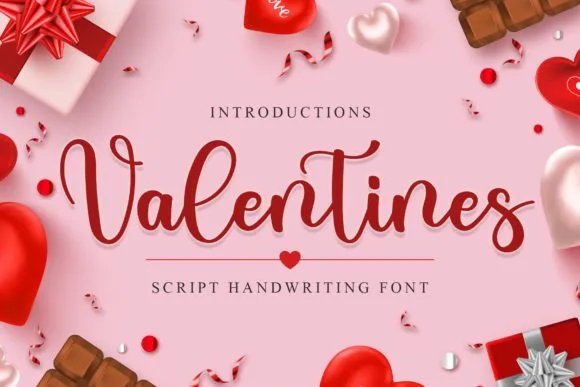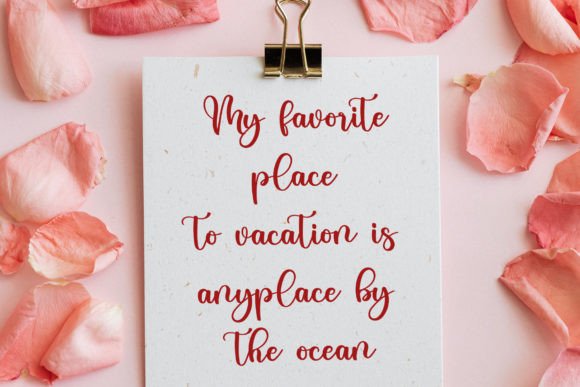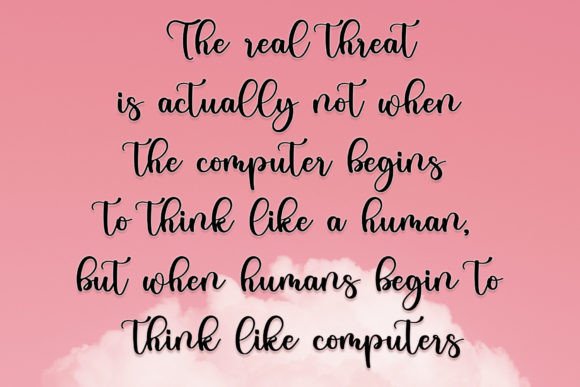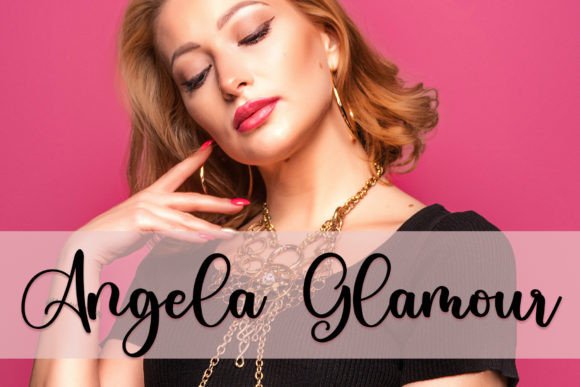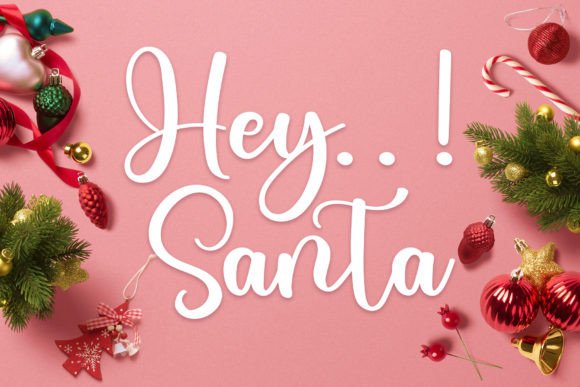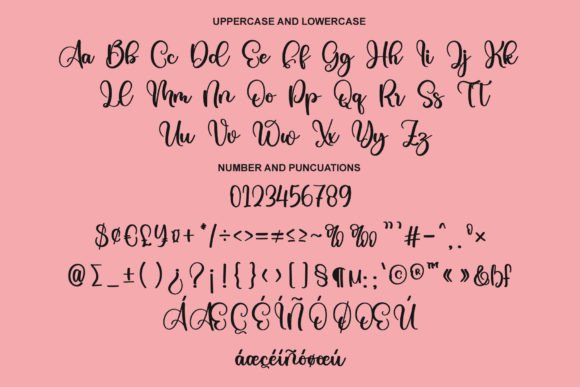
Valentines Font
About Valentines Font
Valentines font is a delicate, elegant, and flowing handwritten typeface that beautifully combines sophistication with a natural handwritten feel. This font features well-balanced characters that make it versatile enough to complement many types of design projects, from wedding invitations to branding and more.
Elegant and Flowing Design
The charm of Valentines font lies in its graceful, flowing letterforms. Its elegant strokes and smooth curves create a refined and romantic aesthetic that enhances the emotional impact of your designs. Whether you’re crafting heartfelt invitations or stylish logos, this font adds a touch of class and warmth.
Versatile Applications for Valentines Font
This font is ideal for various creative projects, such as:
• Wedding invitations and romantic stationery
• Greeting cards and thank you notes
• Brand logos and identity design
• Social media graphics and promotional content
• Personal letters and quotes
Its delicate and flowing style fits perfectly across both formal and casual projects, making it a popular choice among designers seeking elegance.
Add Romance and Sophistication to Your Work
By using Valentines font, you bring a soft, romantic atmosphere to your projects. Its balance of elegance and readability allows your message to shine while creating a warm connection with your audience. This font’s timeless design makes it a valuable addition to any creative toolkit.
Summary
In summary, Valentines font is an elegant and flowing handwritten typeface perfect for wedding invitations, branding, social media, and more. Its delicate design and balanced characters make it a versatile choice for any creative project.